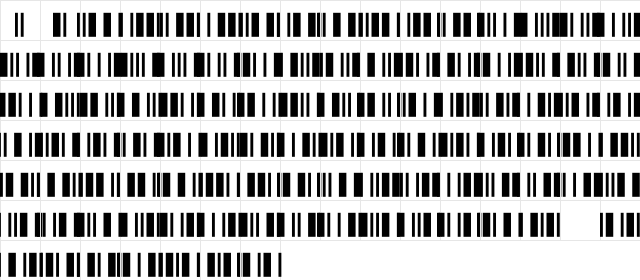
IntP12DlTt Normal
Design Context for IntP12DlTt Typeface
IntP12DlTt takes a measured approach to typography — its balanced proportions and neutral character make it a reliable workhorse for both digital and print work.